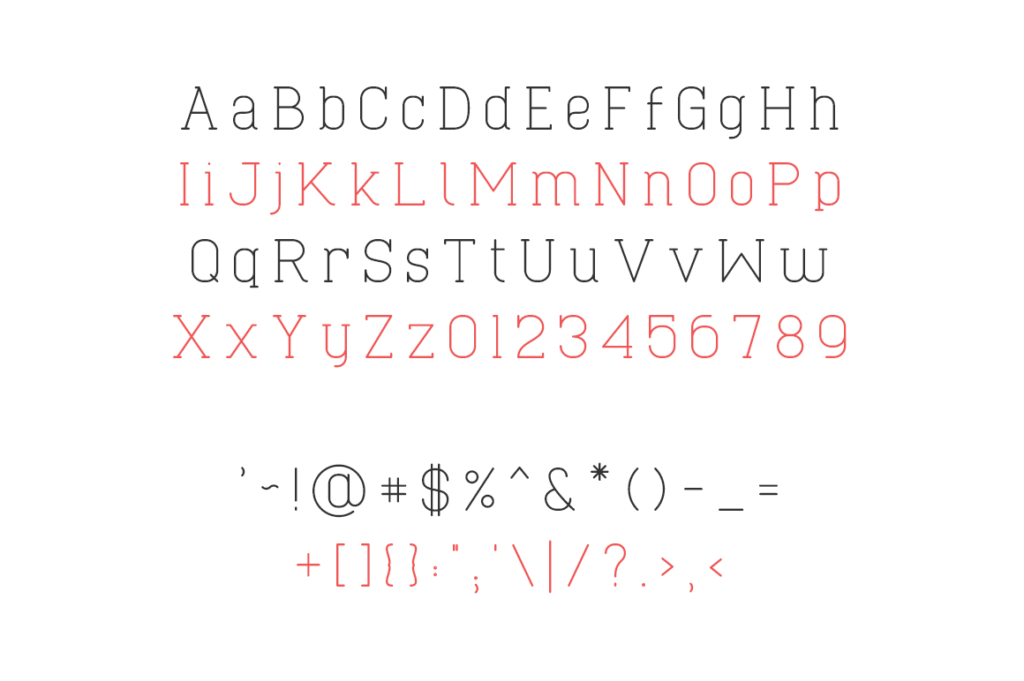
Cabo Slab Typeface
Cabo Slab is a slab serif font family that comes with round edges and a soft style. It is based on the sans serif version called “Cabo Rounded“, but with more weights and styles.
This typefaces comes in 7 weights and 14 styles, basic alphabet letters, punctuation marks and a couple of accents.
Weights and styles:
• Thin + Thin Italic
• Light + Light Italic
• Book + Book Italic
• Regular + Italic
• Medium + Medium Italic
• Semibold + Semibold Italic
• Bold + Bold Italic.